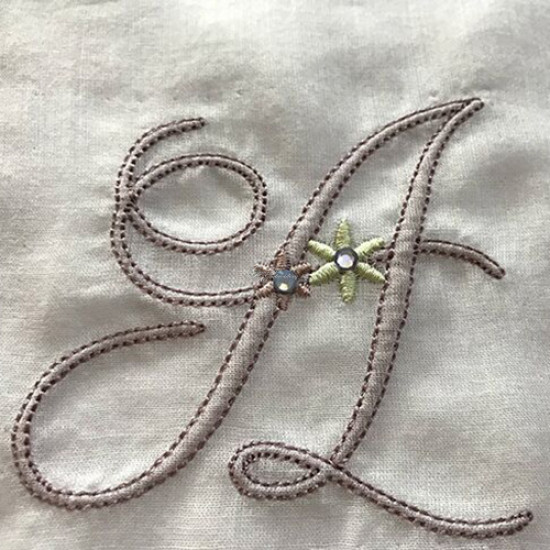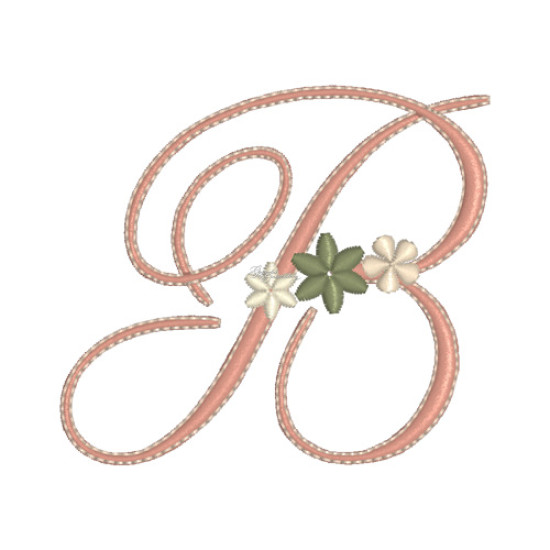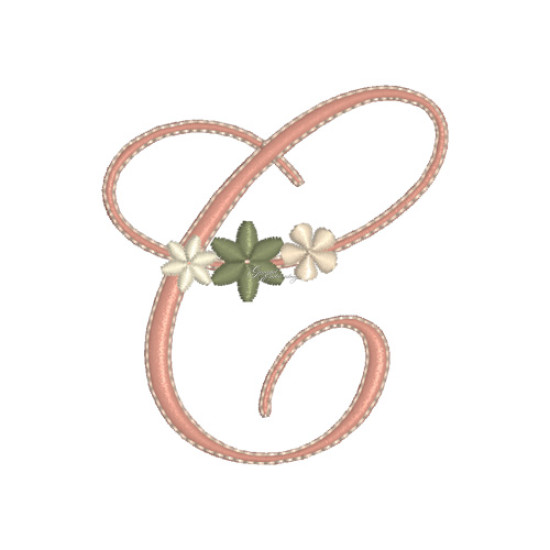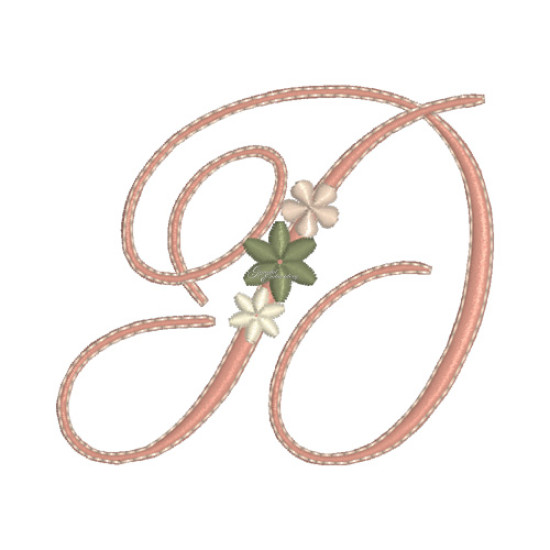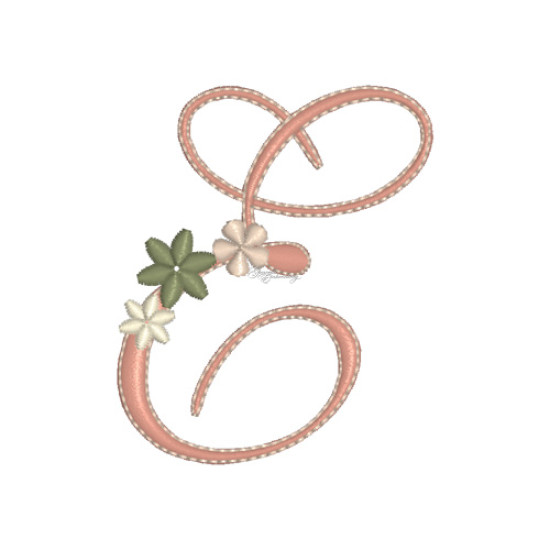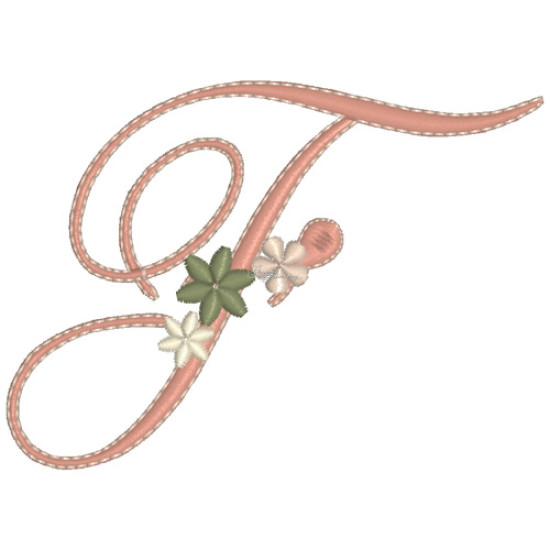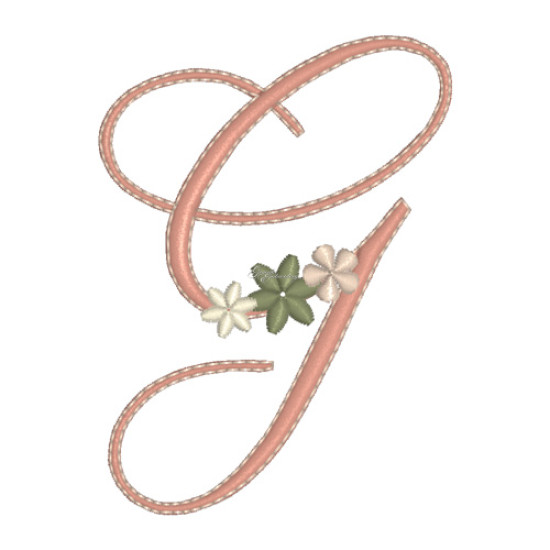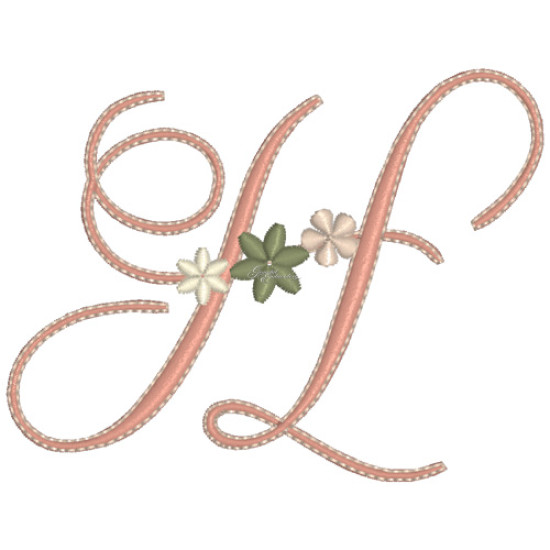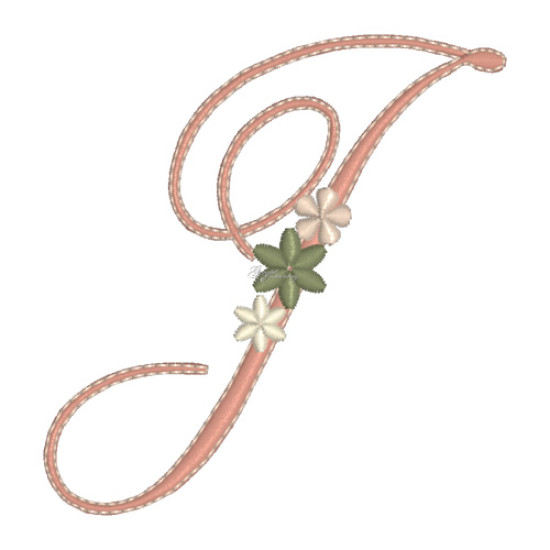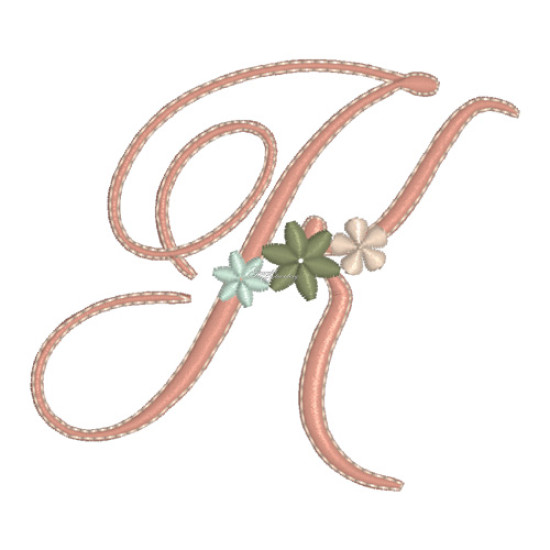
The Grace Font
Grace font machine embroidery designs
The Grace Font.
This is my Grace font, featuring upper case letters with small flowers that can be removed or moved around to create a different look. I like to add a little depth with a crystal in the centre of the largest flower. You can also embroider them with shadow work effect.